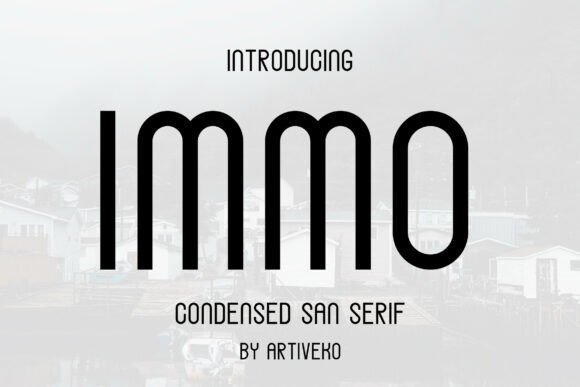
Breaking the Mold with Immo Font
Have you ever found yourself staring at a blank canvas, searching for the perfect font to elevate your design? You’ve scoured through countless options, but nothing seems to capture the essence of your vision. That’s where Immo Font comes in – a modern and artistic sans serif font designed to push boundaries and challenge conventions.
With its unexpected shapes, dynamic proportions, and subtle quirks, Immo Font brings a bold creative edge to logos, branding, posters, packaging, and editorial layouts that crave originality. This font is not just a tool, but a partner in creating truly unique and memorable designs.
For designers seeking to stand out from the crowd, Immo Font is a valuable asset that can help you break free from the ordinary and achieve true creative freedom.
Immo Font Key Features
- Font Family: Immo Font is a modern sans-serif font family designed specifically for real estate and property purposes.
- Character Set: Includes a wide range of characters, including uppercase and lowercase letters, numbers, punctuation, and special characters.
- Font Size: Available in various sizes, from 12pt to 72pt, making it suitable for use in various applications, including signage, print materials, and digital displays.
- Resolution: Designed to be scalable and legible at resolutions up to 300 DPI, ensuring clear readability in various environments.
- Unique Characteristics: Immo Font features a clean and modern design, with subtle rounded edges and a friendly feel, making it perfect for real estate and property branding.
Immo Font Review
Immo Font is a sleek and modern sans-serif typeface designed for real estate and property listings. I’ll be honest with you, I was initially drawn to its clean and minimalist aesthetic, which is perfect for conveying a sense of professionalism and sophistication.
- Sleek and modern design that’s perfect for real estate listings
- Highly legible even at smaller font sizes
- Works well in both digital and print formats
- Includes a range of weights and styles to suit different design needs
- Lack of personality and distinctiveness compared to other sans-serif fonts
- May not be suitable for creative or artistic applications
- Not as extensive a character set as some other fonts
Overall, Immo Font is a solid choice for real estate and property listings, but it may not stand out in more creative or artistic contexts. Its clean and minimalist design makes it a great option for businesses looking to establish a professional and sophisticated brand image.
Immo Font is ideal for real estate, property, and architecture-related designs.
Use it for headings, titles, and body text to create a cohesive and professional look.
Experiment with different font sizes and colors to highlight important information and create visual interest.
Combine Immo Font with other fonts to create a unique and eye-catching design.